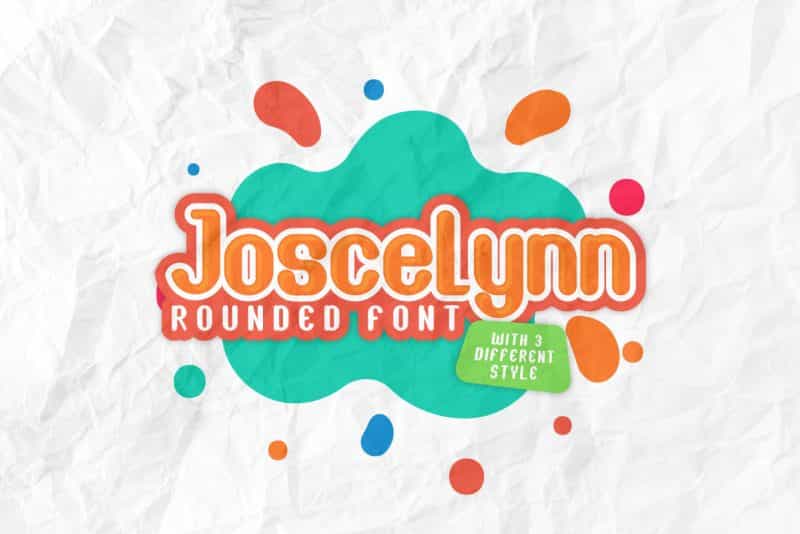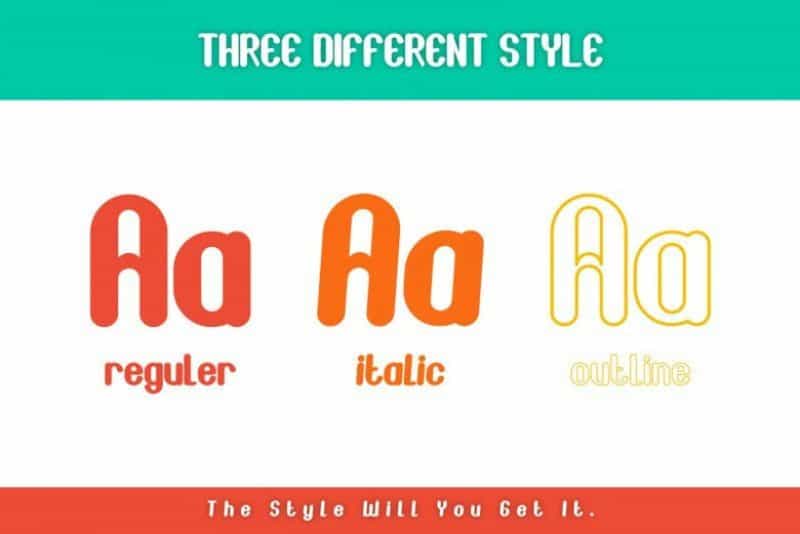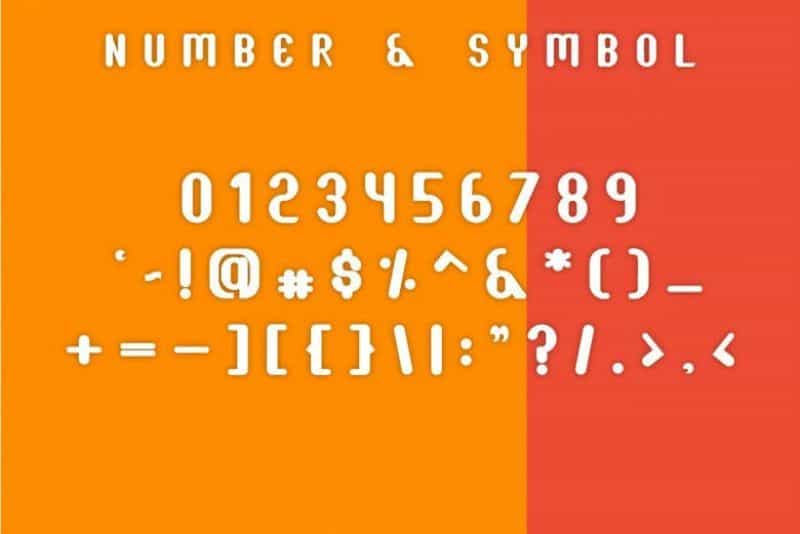
What’s up Everyone! Introducing our newest font : Joscelynn! This is a comic with an odd non formal typeface that makes it fun. It has a new unique type of glyph. It is a new, nice, and elegant font.